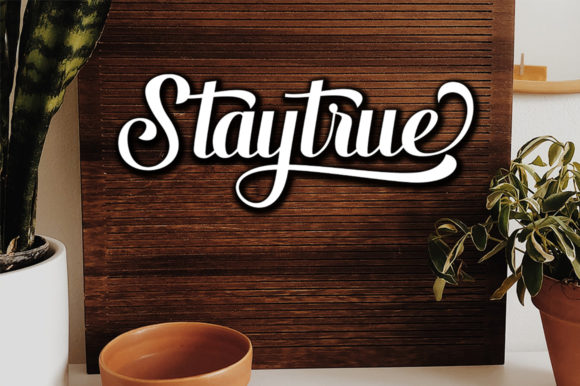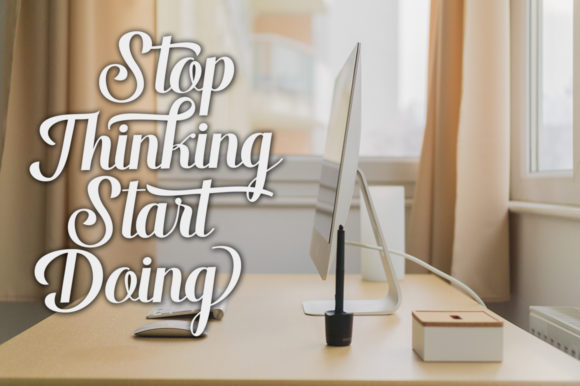
Warrior Script Font
db-ku.com - Script & Handwritten -- The Warrior is a beautiful calligraphy script. It’s a mixture of copper calligraphy and a hand lettering style. The Warrior is a subtle, clean, feminine, sensual, glamorous, simple and a very readable typeface which can be used for every design which needs an elegant touch!